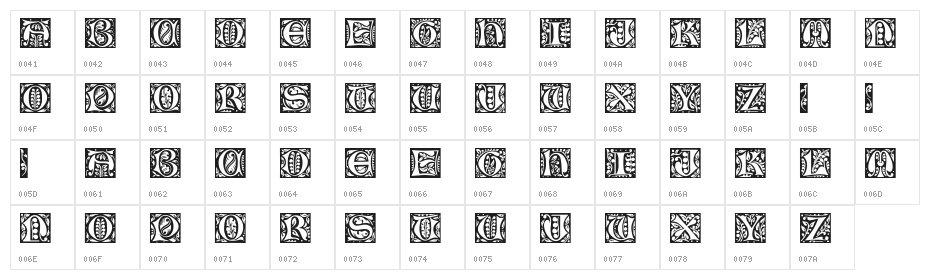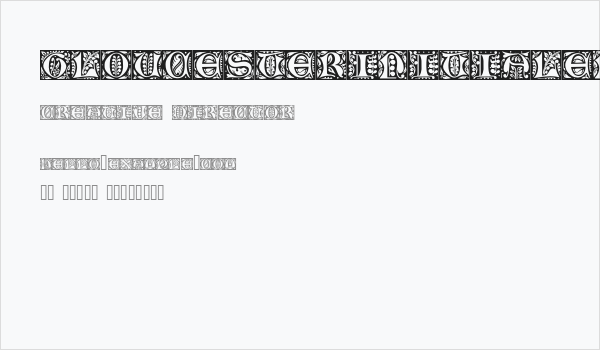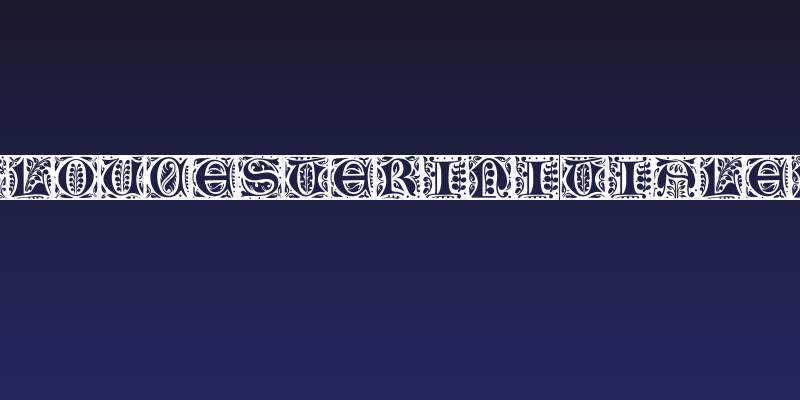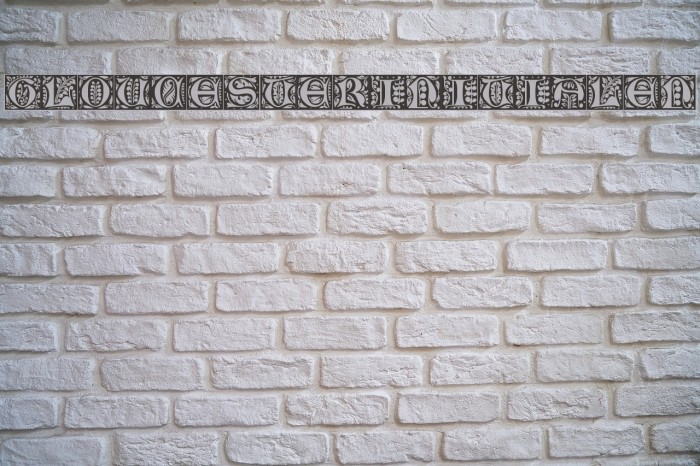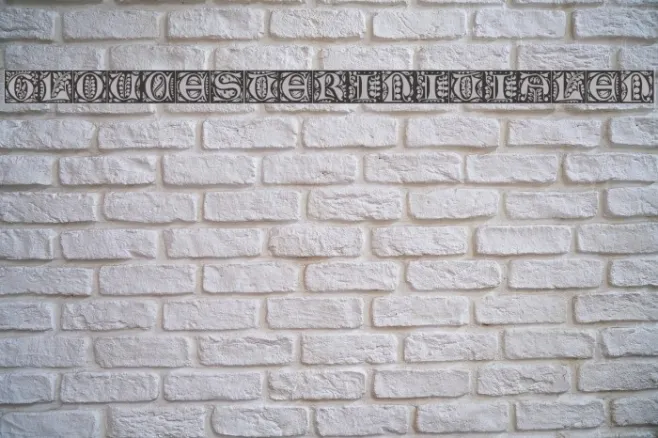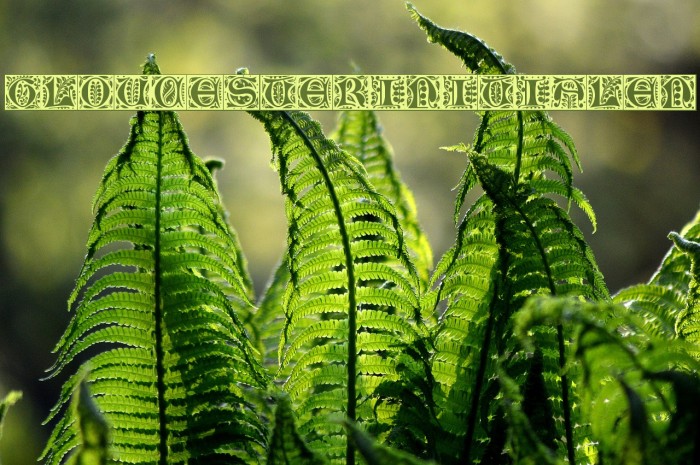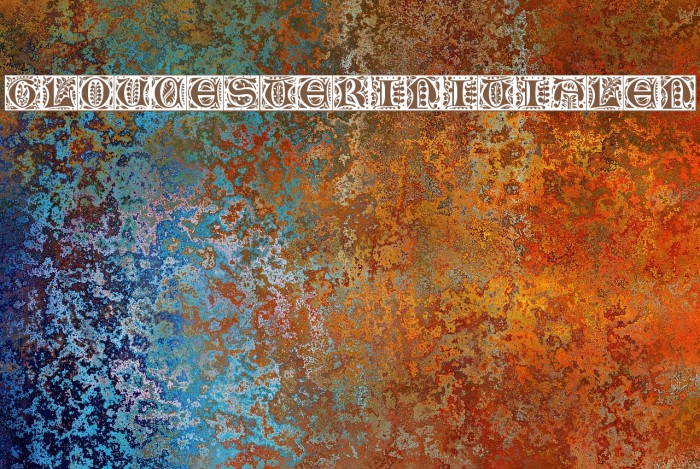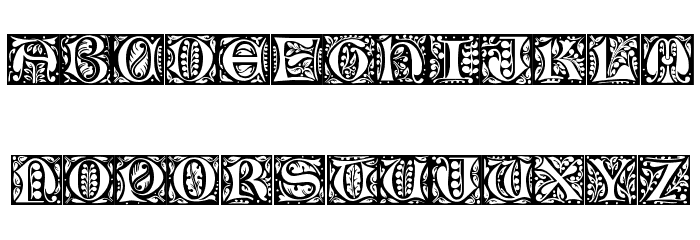
GloucesterInitialen Font
GloucesterInitialen Description
This font is a highly decorative and ornate typeface, characterized by its intricate patterns and embellishments within each letter. The letters are enclosed in square frames, each filled with elaborate floral and vine motifs, creating a sense of elegance and historical charm. The design is reminiscent of illuminated manuscripts, with a strong emphasis on artistic detail and craftsmanship. The uppercase letters are bold and striking, making them ideal for decorative purposes where a touch of sophistication and artistry is desired. The font's unique style makes it stand out, capturing attention with its intricate beauty.
| Overall Style | Vintage |
| Proposed Projects | Ideal for use in vintage-themed designs, wedding invitations, book covers, or any project requiring a touch of elegance and historical charm. |